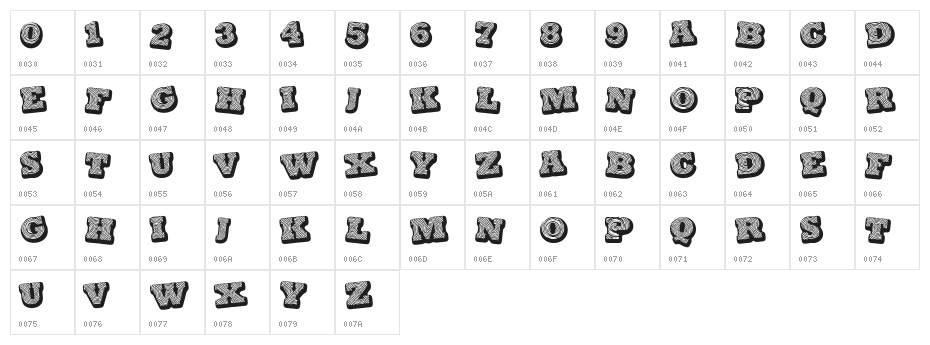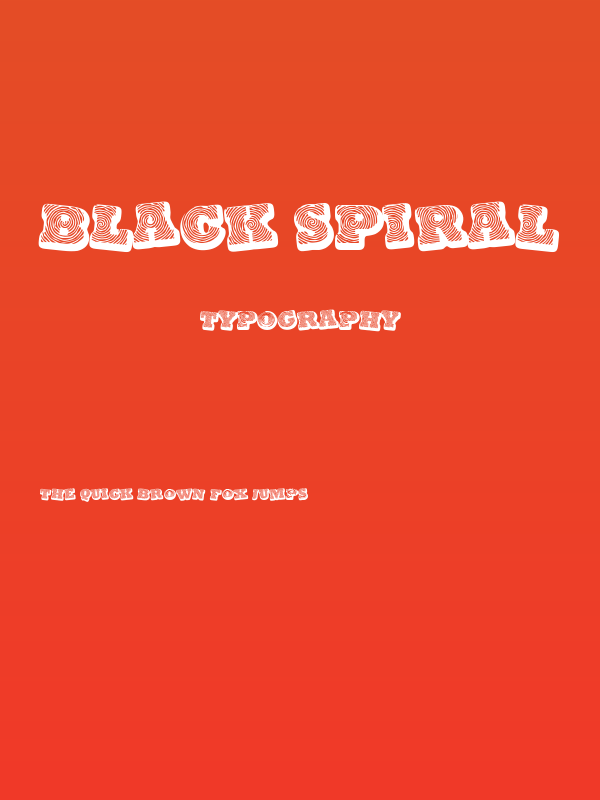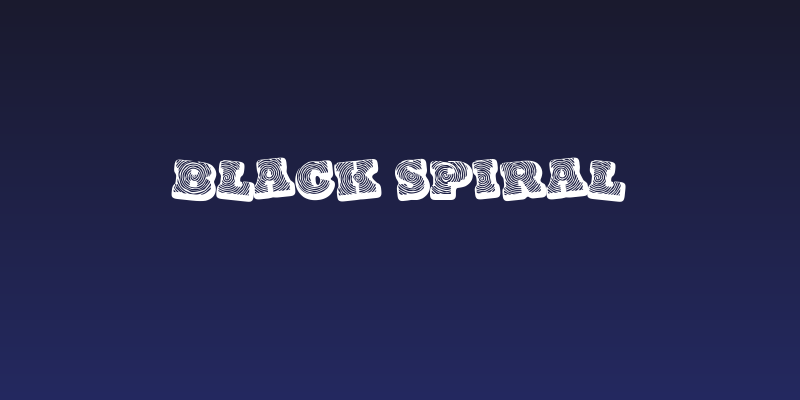
Black spiral Font
Black spiral Description
This font features a bold and playful design with a unique spiral pattern filling each character. The letters are thick and rounded, creating a sense of depth and movement. The spiral design adds a dynamic and eye-catching element, making it ideal for creative and artistic projects. The overall appearance is both whimsical and bold, capturing attention with its intricate detailing. Each character maintains a consistent style, ensuring readability while also providing a decorative flair. This font is perfect for projects that require a standout, artistic touch.
| Proposed Projects | Perfect for posters, album covers, children's books, and branding that requires a fun and artistic touch. |